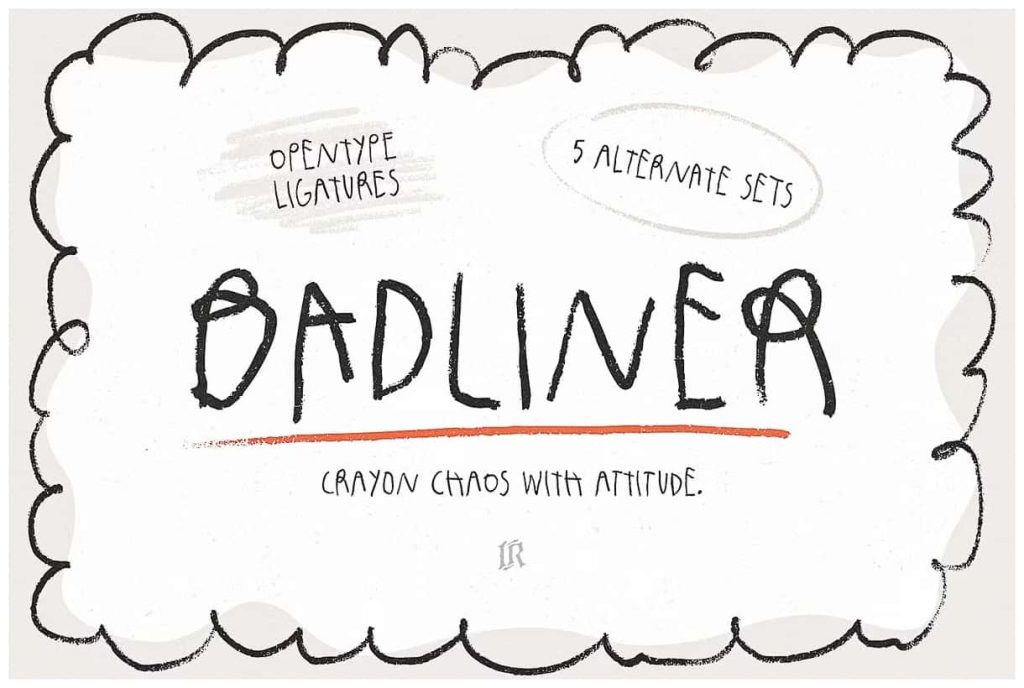
Badliner – Crayon Font
Bring a touch of playful chaos to your designs with Badliner, a hand-drawn crayon font that perfectly balances rough character with readability. Its slightly messy yet highly legible style makes it a versatile choice for quotes, headers, posters, packaging, social media graphics, or even longer text blocks that need personality.